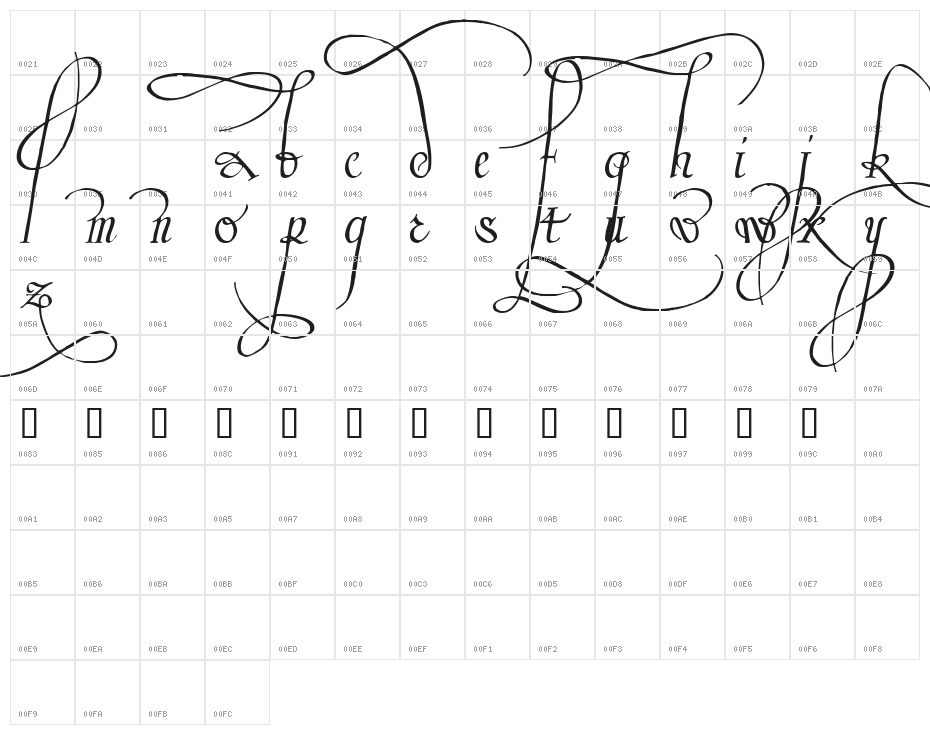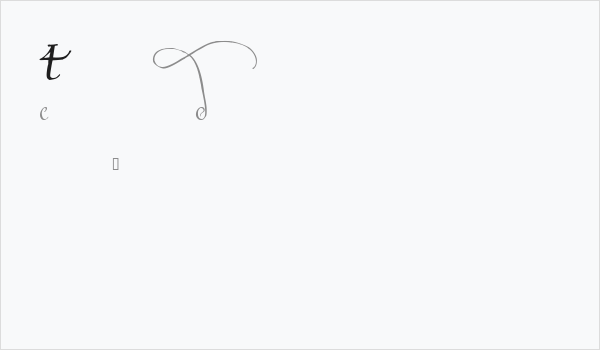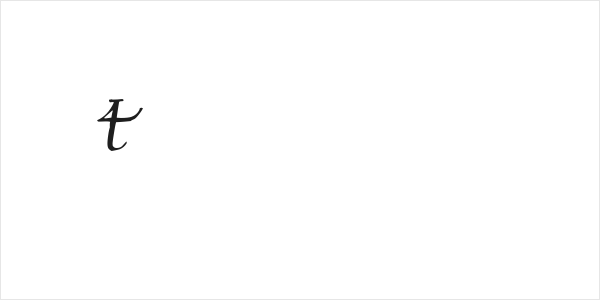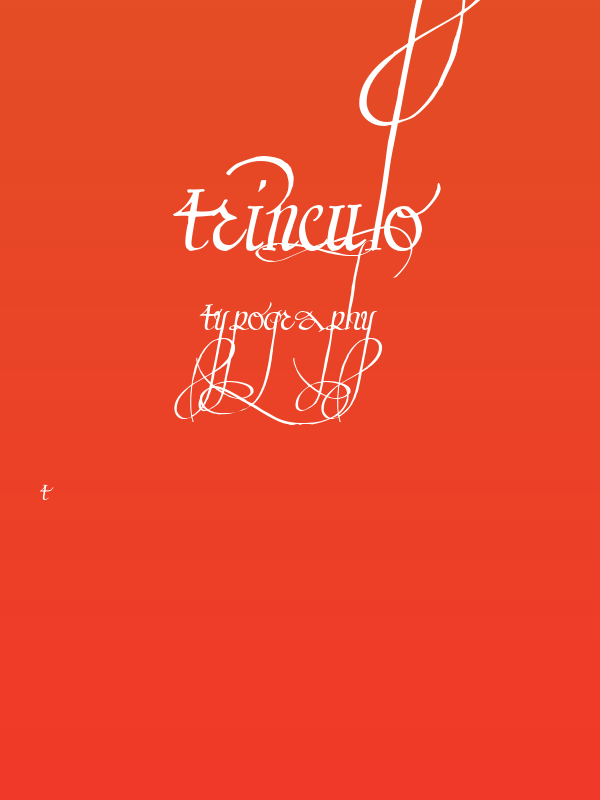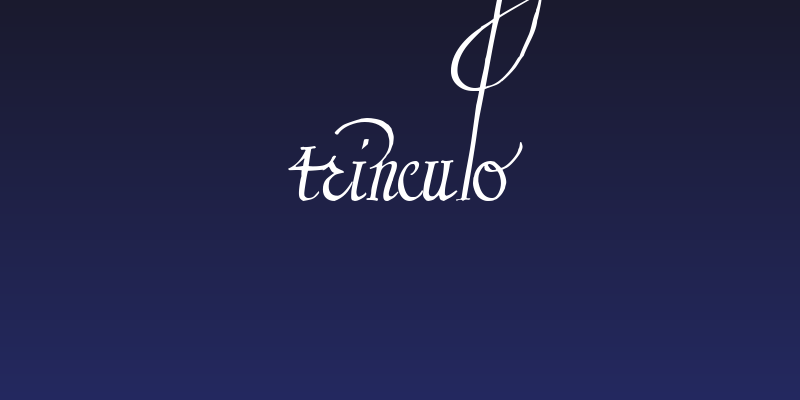
Trinculo Font
Trinculo Description
This font is an elaborate and highly decorative script with intricate swirls and loops that create a sense of elegance and sophistication. The characters are interconnected with flowing lines, giving it a calligraphic appearance. The uppercase letters are particularly ornate, featuring exaggerated flourishes that extend beyond the baseline and cap height. The lowercase letters maintain a consistent style, with smooth curves and a fluid motion. This font is designed to capture attention and convey a sense of luxury and artistry. It is not suitable for body text due to its complexity and the potential for reduced legibility at smaller sizes.
| Use Case | Logos, Invitations, Artistic headings |
| Proposed Projects | Ideal for wedding invitations, luxury branding, high-end product packaging, and artistic posters. |